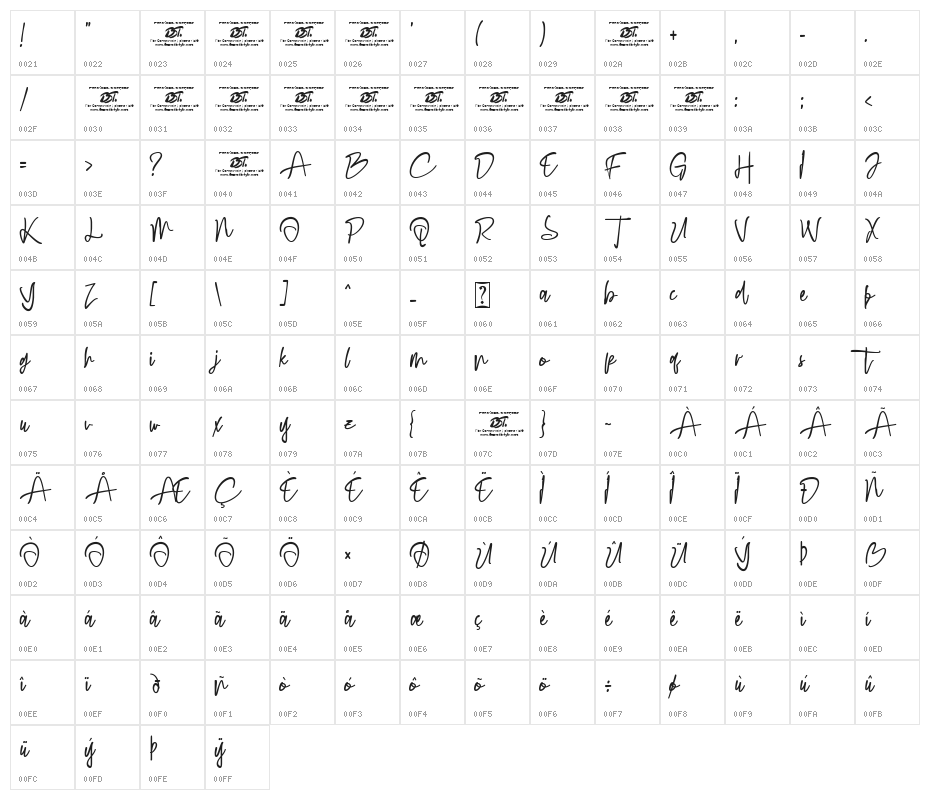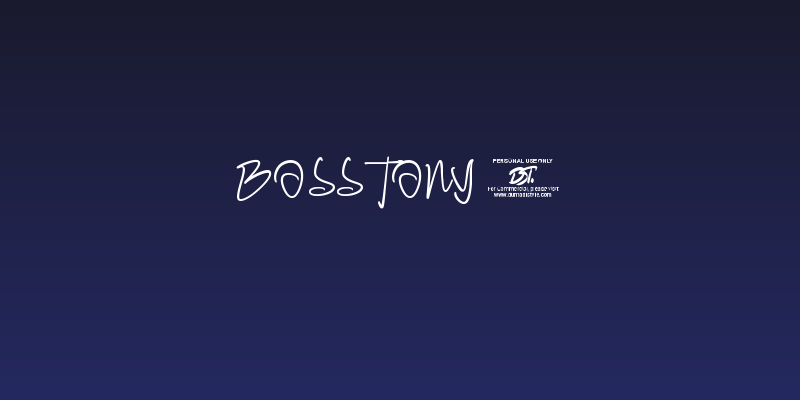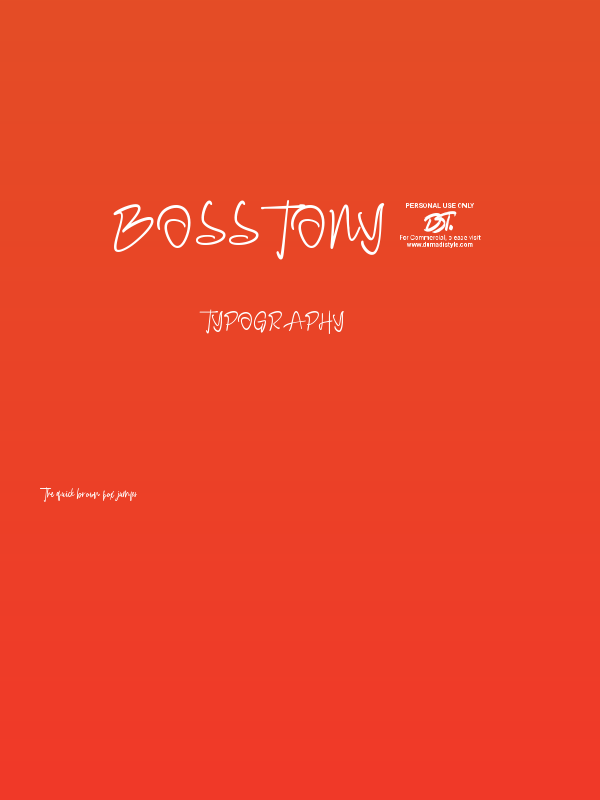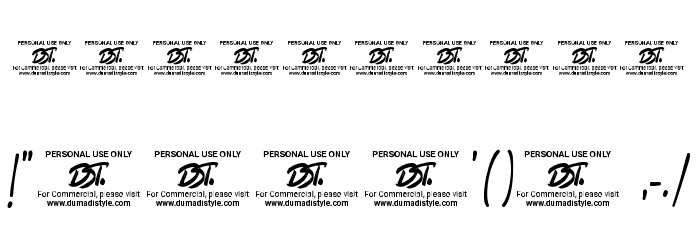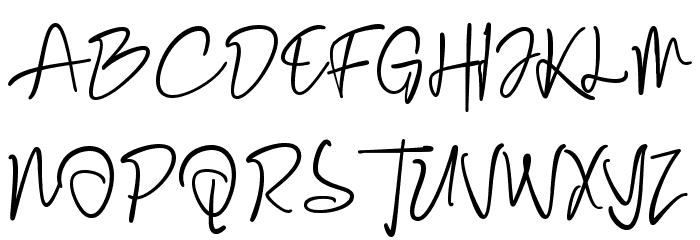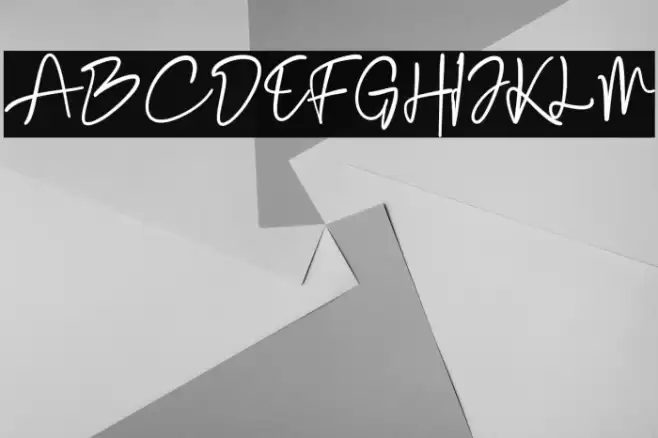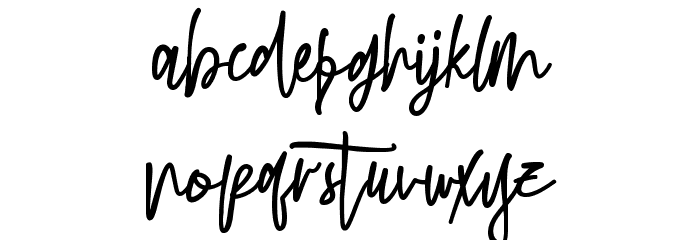
Bosstony 4 Font
Bosstony 4 Description
This font features a dynamic and expressive handwritten style, characterized by its fluid and cursive letterforms. The uppercase letters are bold and slightly slanted, giving a sense of movement and energy. The lowercase letters maintain a consistent flow, with some characters extending below the baseline, adding to the font's lively appearance. The numbers and special characters are designed to match the overall aesthetic, ensuring a cohesive look. This font's playful yet elegant style makes it suitable for a variety of creative projects.
| Proposed Projects | Ideal for branding, invitations, greeting cards, and social media graphics. |